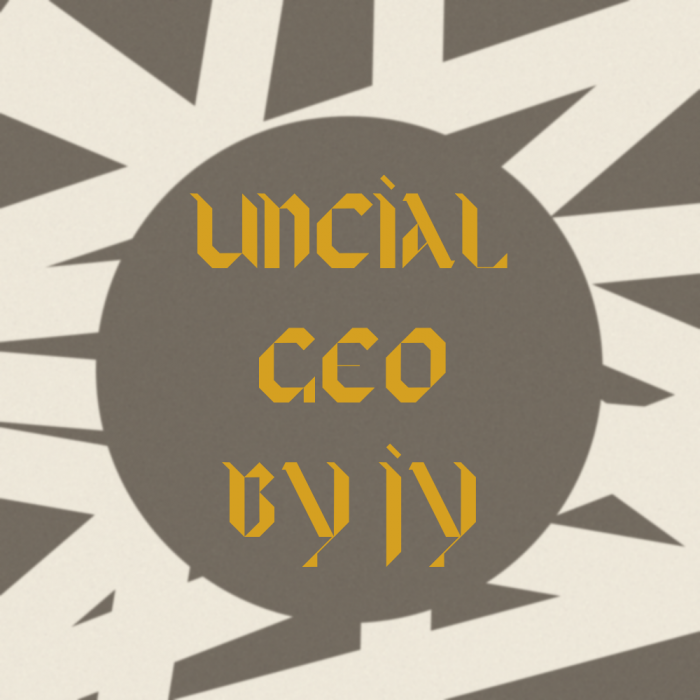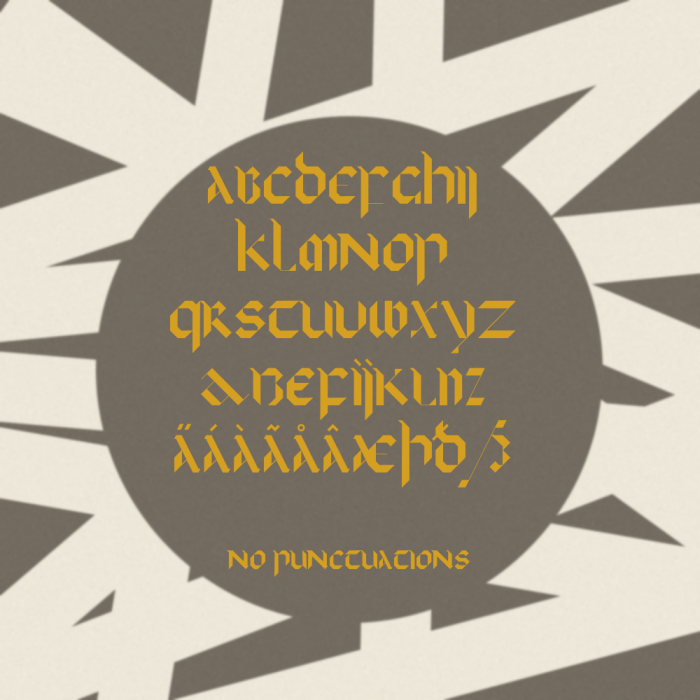
• geo -praphical- METRY uncial font
Very pretty font (btw, I prefer the upper case). What about numerals and diacritics?
very nice design, it seems to give off a bit of a medieval flair
not interested in numerals, partly because i dont know what they'd look like, diacritics tho, i will consider.
Did you mean to type "geographical" in the description? I can't seem to find geopraphical in the dictionary…
i mean geoMETRY LMAO
additions has been made, mainly the diacritics and the ß, i dont think they used punctuations at all so i dont wanna add em
update note: added macron vowels(aeiou)